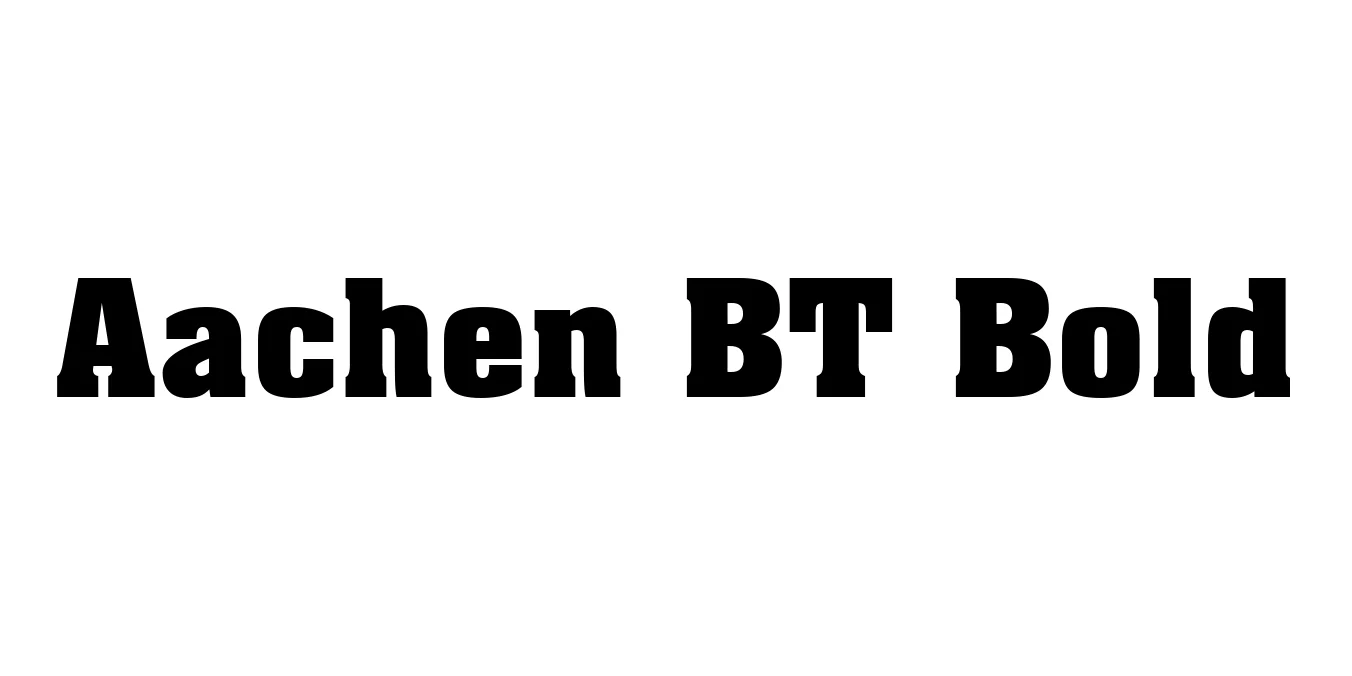
Aachen BT Bold
Designed by Colin Brignall and Alan Meeks
| Font Name | Aachen BT |
| Category | Slab Serif |
| Designer | Colin Brignall and Alan Meeks |
Aachen BT Bold is a heavy slab serif typeface originally designed by Colin Brignall in 1969 for Letraset. Characterized by its short ascenders and descenders, this font features thick, block-like serifs and a high x-height that provides an authoritative and robust presence. Its geometric construction and solid weight make it an exceptionally legible choice for high-impact display settings where a sense of strength and permanence is required.
The Aachen family has evolved over the decades into a typographic staple for collegiate sports, industrial branding, and editorial design. The 'BT' designation indicates the Bitstream version of the face, which accurately preserves the bold, punchy essence of the original letterforms. It remains one of the most recognizable slab serifs in the world, frequently utilized by professional sports teams and in advertising to convey masculinity and reliability.
Aachen BT Bold Best Uses
Perfect for jersey numbers, athletic logos, and team merchandise.
Excellent for high-impact titles in magazines and newspapers.
Conveys a sense of durability and strength for construction or machinery brands.
Creates high-visibility messaging that captures attention from a distance.